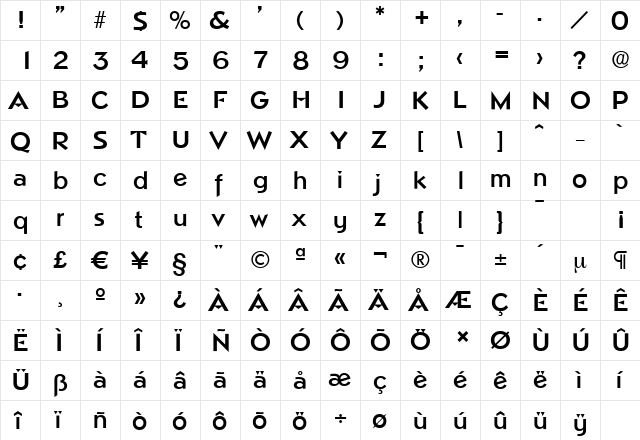
NapoliSerial Bold
Design Context for NapoliSerial Typeface
NapoliSerial takes a measured approach to typography — its balanced proportions and neutral character make it a reliable workhorse for both digital and print work. The heavy weight commands attention and anchors typographic hierarchies.